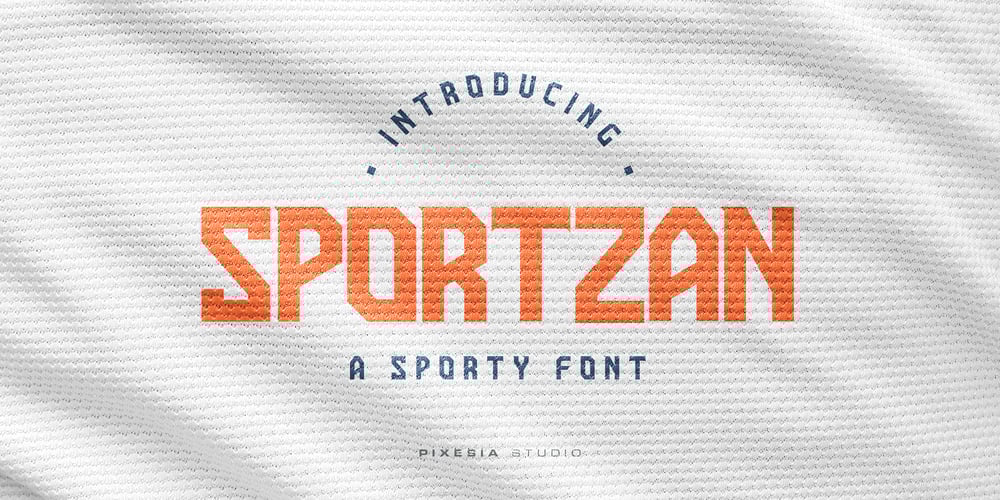
Sportzan Font Family was designed by Abul Almaududi and published by Pixesia Studio. Sportzan contains 1 styles and family package options. Introducing Sportzan – A Sporty Display FontSportzan, as its name, is a sport font. Sportzan brings you the kind of cheerful and sporty vibes which spreads the playful energy for the game. Sportzan is designed to have sharp-corners to express the strength.With its bold design, sportzan will be suitable to be associated to any kind of sport product such as poster, jersey design, sport-slogan, and any writing which needs a strong-bold vibe.FEATURES- PUA Encoded- Uppercase and Lowercase letters- Numbering and Punctuations- Multilingual Support- Works on PC or Mac- Simple Installation- Support Adobe Illustrator, Adobe Photoshop, Adobe InDesign, also works on Microsoft WordHope you Like it.Thanks.